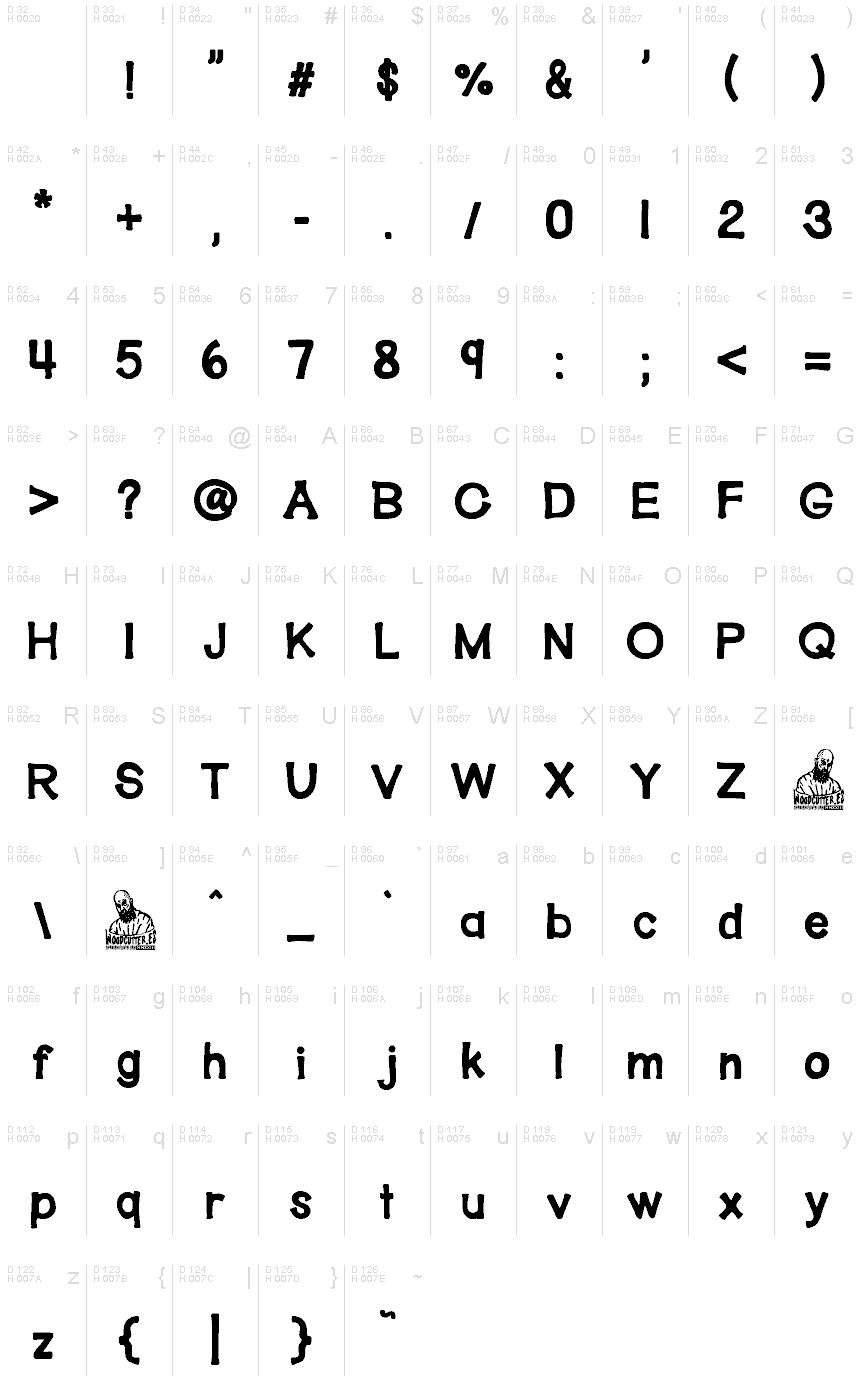
Héctor Salamanca
Héctor Salamanca font by Woodcutter Manero is a free display fonts that emphasizes readability to deliver its message. The bold typeface with its geometric characters is not only for show, but it also transports us back to earlier times with an almost nostalgic sensation by having a mixed inspiration from both modern and retro styles.
Use this font for posters, especially those allowing minimal texts. Combine it with other texts in book covers for kids and adults alike along with movie or documentary covers/titles, social media posts, magazine headings, package designs such as milk boxes, clothes tags, and others.